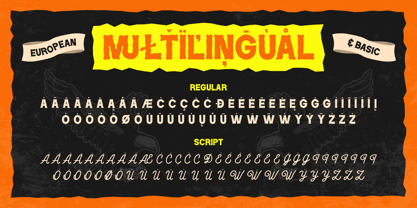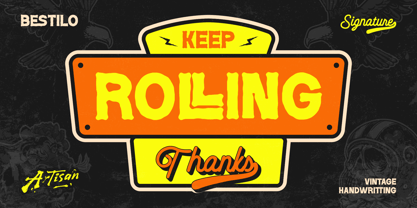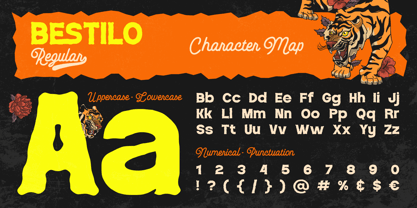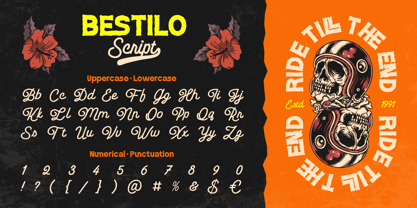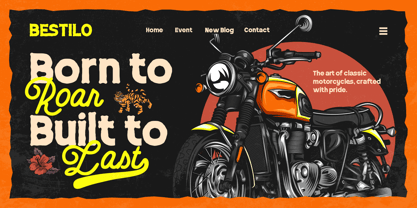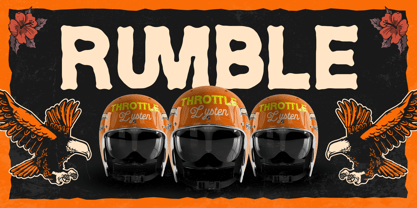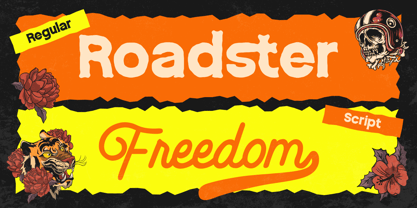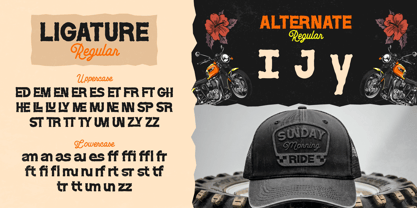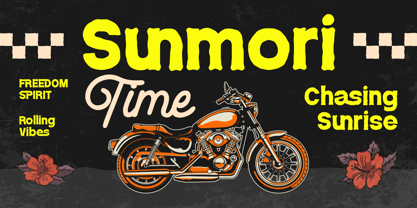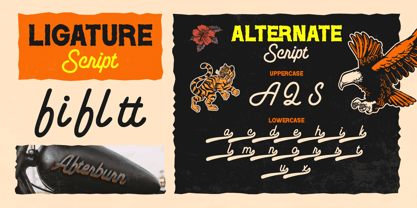
Bestilo
by Artisan Themes
The Bestilo Font Family was designed by Eric Kurniawan and published by Artisan Themes. Bestilo contains 2 styles and family package options. More about this family
Bestilo Signature is a cool duo-style font that mixes bold vintage energy with smooth hand-written charm. The regular style gives you that rough, authentic, handcrafted look—perfect for headlines, posters, merch, and anything that needs attitude. The script style brings a clean, flowing signature vibe that feels stylish, friendly, and super versatile. When you pair both styles together, you get a powerful combo that looks bold and classy at the same time. Whether you're working on motorcycle themes, retro designs, apparel graphics, branding, or social media visuals, Bestilo Signature delivers that strong aesthetic. Features: A - Z set (Uppercase & Lowercase), Number, Punctuation, Alternate, Ligature, Multilingual
Designers: Eric Kurniawan
Foundry: Artisan Themes